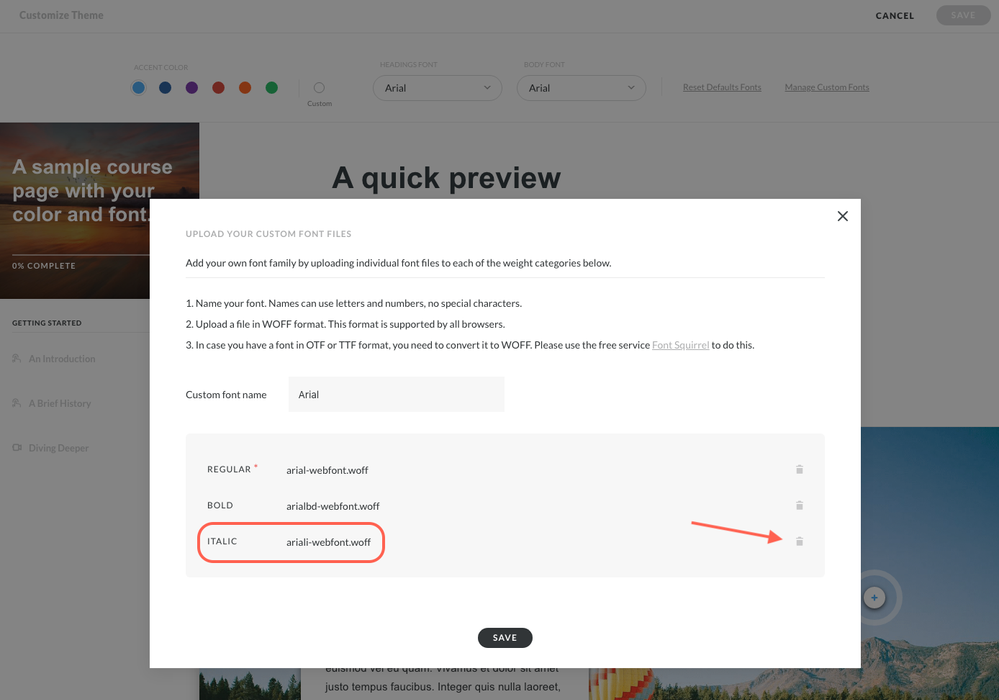
Change font for individual words/phrases?
I'm new to Rise, and the content I'm working with is targeted at software developers. It's standard in this type of documentation to use a monospace font whenever referencing a literal word in computer code. For instance, in the phrase "You use the document object," the word "document" would appear in a monospace font, while the rest of the sentence would remain in a more readable variable-width font.
I haven't found a way to change the font of specific words/phrases in Rise. Is there a way to do this? And if not, is on the roadmap to roll out in the future?
Right now, Rise 360 doesn't have a feature that will allow you to change the font of individual words or phrases. However, I saw a neat workaround from a community member that may work for you, especially if you're using a custom font throughout the course.
- Choose one of the font styles that you don't need, and delete it. For example, you may not need Italics in your course. Click the trash icon to delete that font style.
- In the Italics space, replace the deleted font style with the WOFF file of the monospace font.
Now, anytime you need to use the monospace font, simply highlight the text and click the Italics button.
Workaround with bold/italic font substitution is not working for me because I use both for their intended purpose.Hi Ivan! I see you've also posted here.
Having the ability to change the font for specific words or sentences in text would be a great addition to Rise. For someone creating software development training, this is a must-have feature. Rise is great, helping us create much more engaging content, but as an organization focused on IT-related training, we are currently limited in the type of content we can create in Rise because of this particular missing feature.
Has there been any progress made on this limitation? I’ve had several requests to change the font of individual words or phrases for branding purposes. It would be wonderful if this feature was embedded in the inline formatting tool (including the ability to replace with a customized, branded font).
I understand how this could be limiting, especially for technical or branded content where specific formatting like monospace fonts or custom styling is important.
Currently, Rise 360 doesn’t support applying different fonts to individual words or phrases within a text block. Font choices are applied at the theme level, which means inline font variation isn’t available through the formatting toolbar.
I can see why having more flexibility directly in the inline formatting options would make a big difference here. I’ve added your use case to our existing tracking so our product team can continue to evaluate this need.